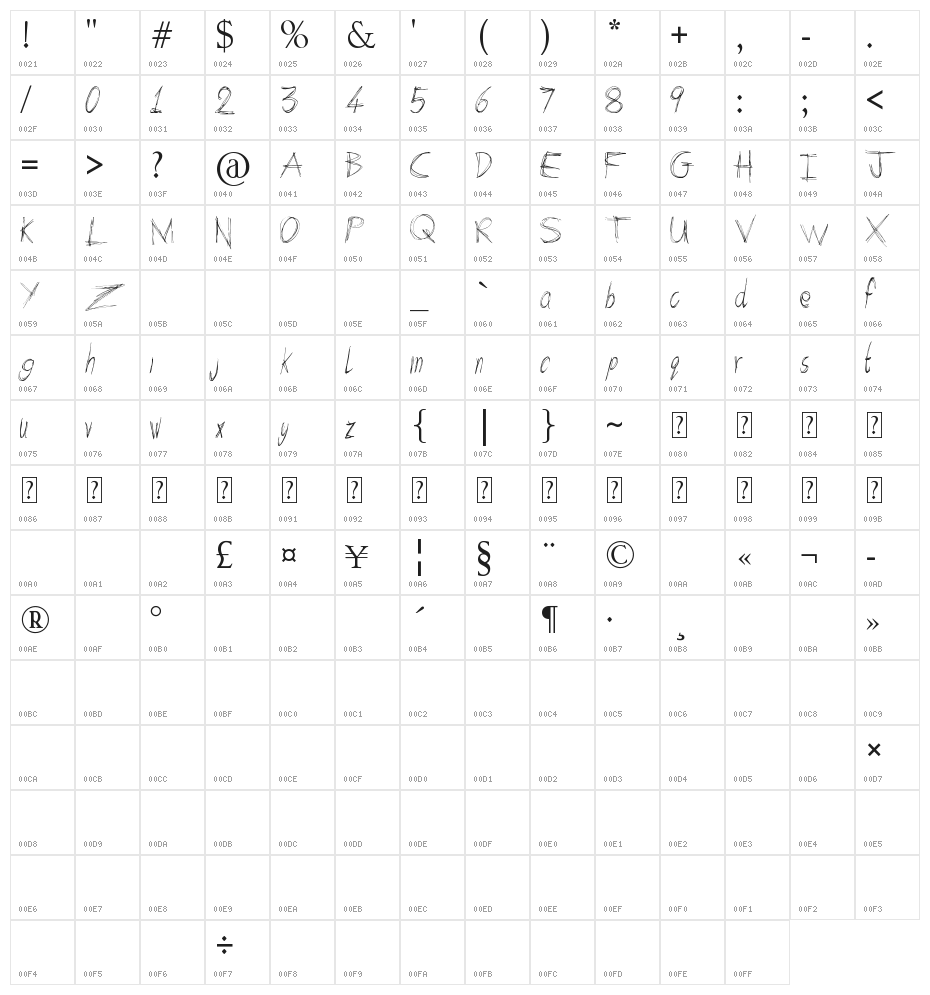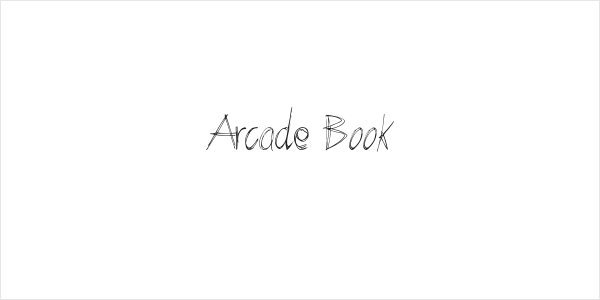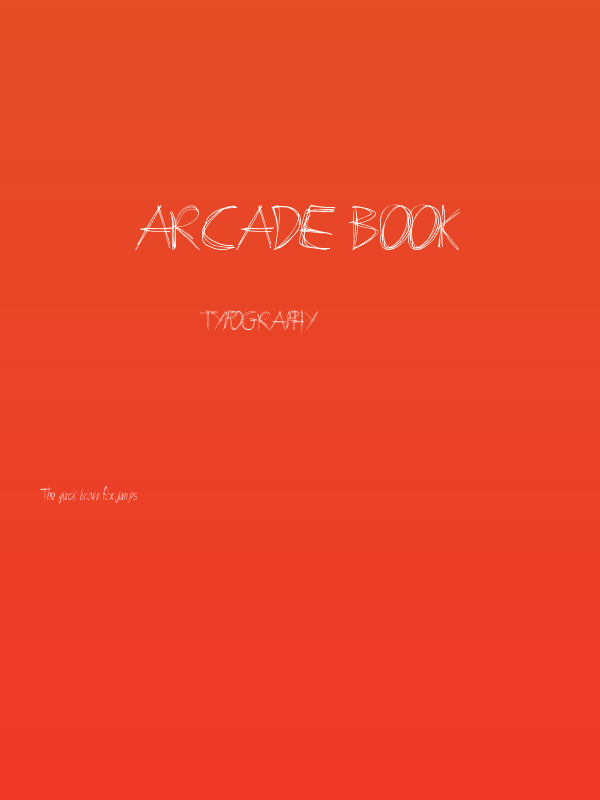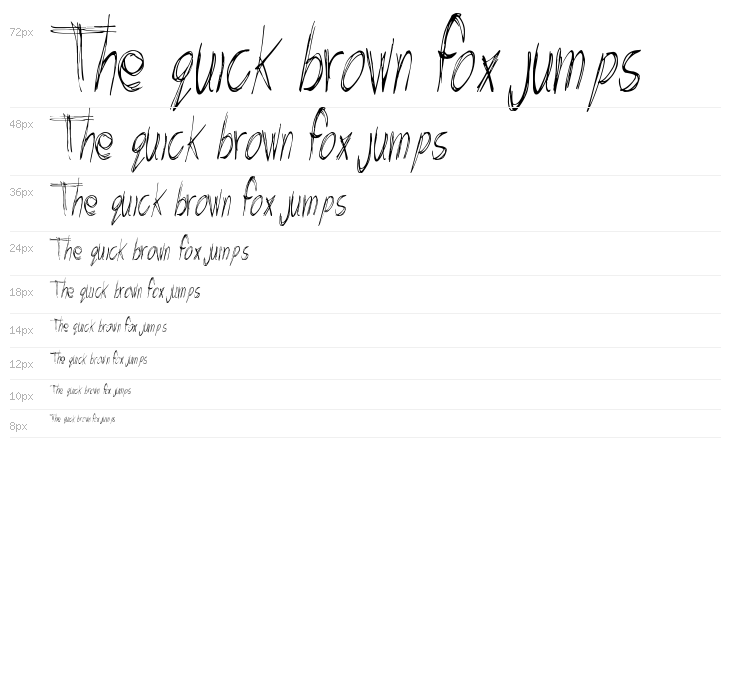
Arcade Book Font
Arcade Book Description
This font features a dynamic and energetic style, characterized by its sketch-like, hand-drawn appearance. The letters are irregular and slightly chaotic, giving a sense of movement and spontaneity. Each character has a unique, artistic flair, with varying stroke thicknesses that create a lively texture. The uppercase and lowercase letters maintain a consistent style, while the numerals and special characters complement the overall aesthetic. This font's playful and informal nature makes it stand out, ideal for projects that require a touch of creativity and individuality.
ARCADE-BOOK UPPERCASE
ARCADE-BOOK LOWERCASE
ARCADE-BOOK OTHER CHARS
| Use Case | Headlines, Posters, Artistic Branding |
| Proposed Projects | Ideal for creative projects such as comic books, children's books, posters, and artistic branding materials. |